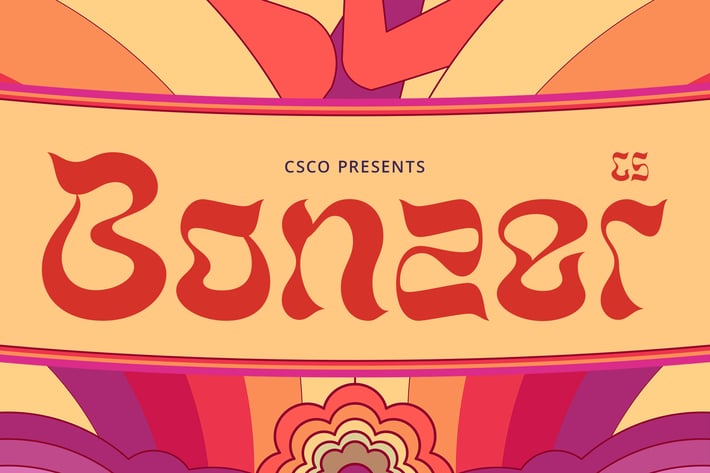
Bonzer – Trippy Font
CS Bonzer Font – A Trippy Visual Experience
A Modern Display Font with a Psychedelic Twist
CS Bonzer is a bold and expressive display font that captures the essence of trippy and psychedelic design. With its dynamic curves, fluid shapes, and hypnotic movement, this font brings a sense of energy, creativity, and freedom to any project. Its free-flowing letterforms give off a funky and spontaneous feel, making it a standout choice for bold and artistic typography.
Lively and Unconventional Letterforms
The font’s wavy, distorted, and organic structure reflects the psychedelic art movement, creating a sense of motion and surrealism. Its bold strokes and unconventional flow make each letter unique, adding a dreamlike and visually captivating element to designs. Whether used in headlines or display text, CS Bonzer delivers a playful yet impactful presence.
Perfect for Music and Creative Branding
Designed for music-themed projects, festival posters, branding, album covers, and experimental visuals, CS Bonzer brings a sense of adventure and artistic expression. Its vibrant and energetic nature makes it ideal for designs that break the norm and embrace creativity.
A Statement of Freedom and Expression
CS Bonzer embodies the spirit of self-expression and artistic exploration, perfect for designers looking to create bold, unconventional, and visually dynamic compositions. Its trippy yet structured appearance balances chaos and harmony, ensuring versatility while maintaining its wild and free-spirited identity.